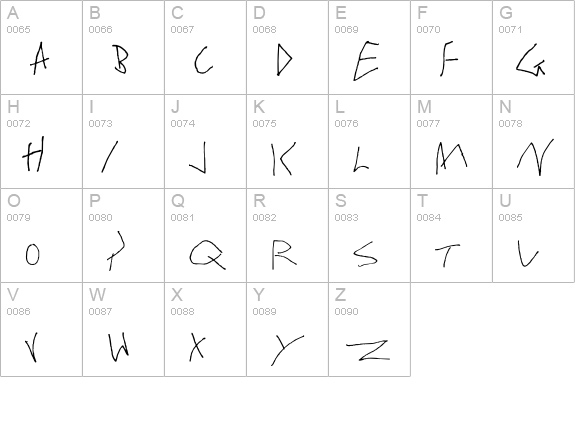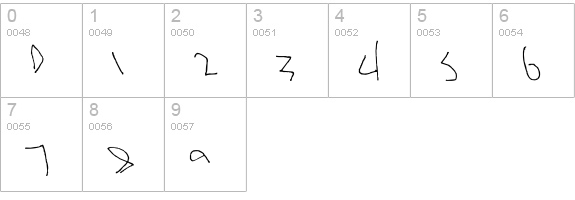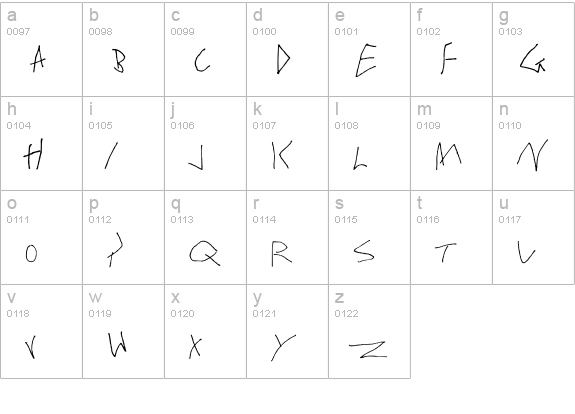
Broke Font Details
Broke font is a unique and eye-catching typeface that exudes a sense of edgy style and modernity. Its jagged edges and bold design make it perfect for creating impactful headlines, posters, and branding materials. The font's distressed appearance gives it a raw and urban feel, ideal for projects that require a touch of grit and personality. What sets Broke font apart is that it is not only visually striking but also completely free to download. Yes, you read that right - this versatile font is available for free at FontsMarket.com. Whether you're a designer looking to add a touch of rebellious flair to your work or a creative soul seeking a font that stands out from the crowd, Broke font is the perfect choice. Download it now and let your creativity shine with this one-of-a-kind typeface.